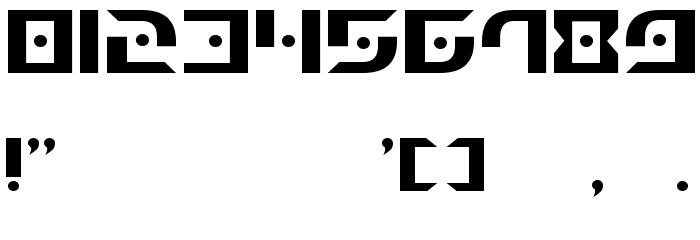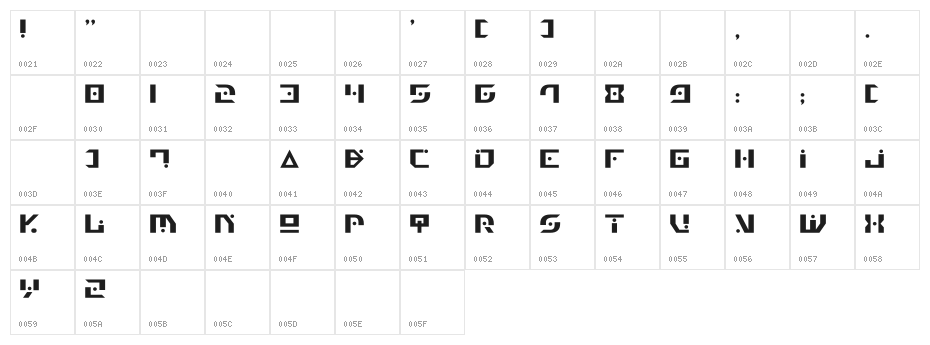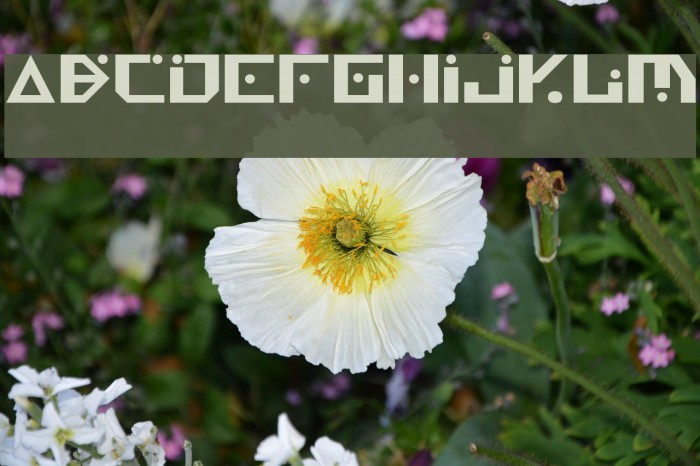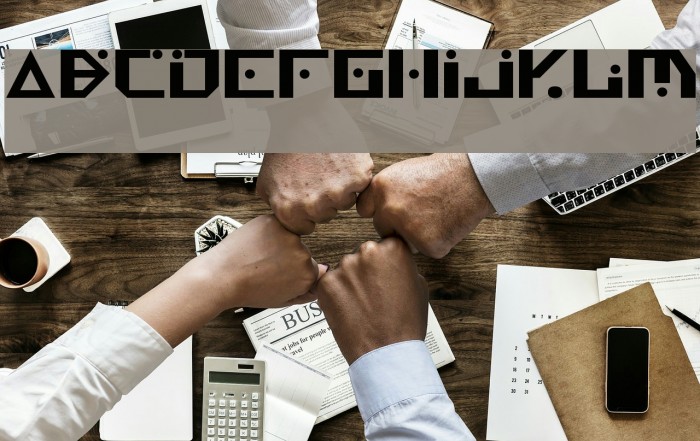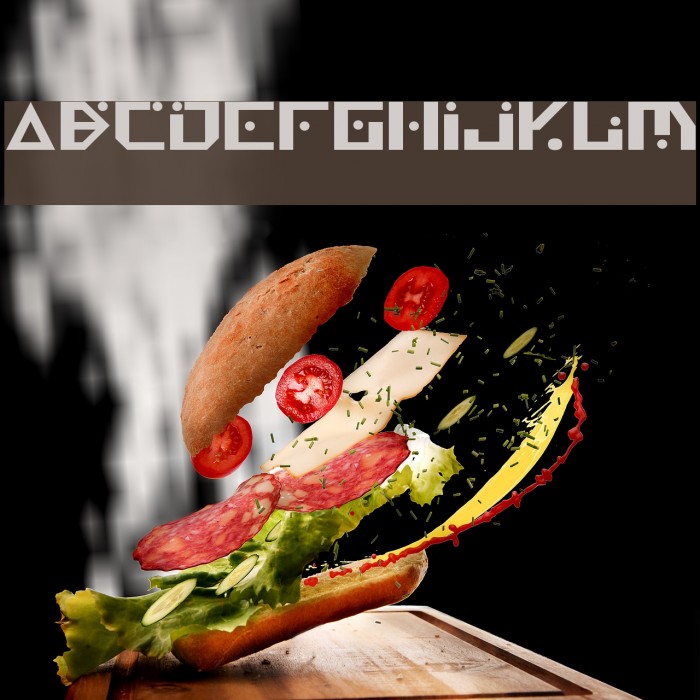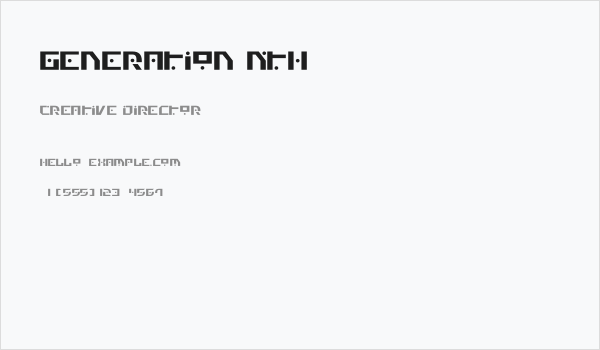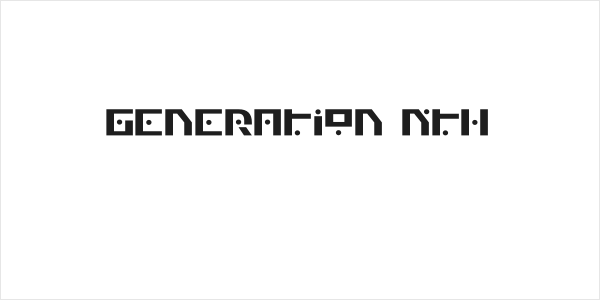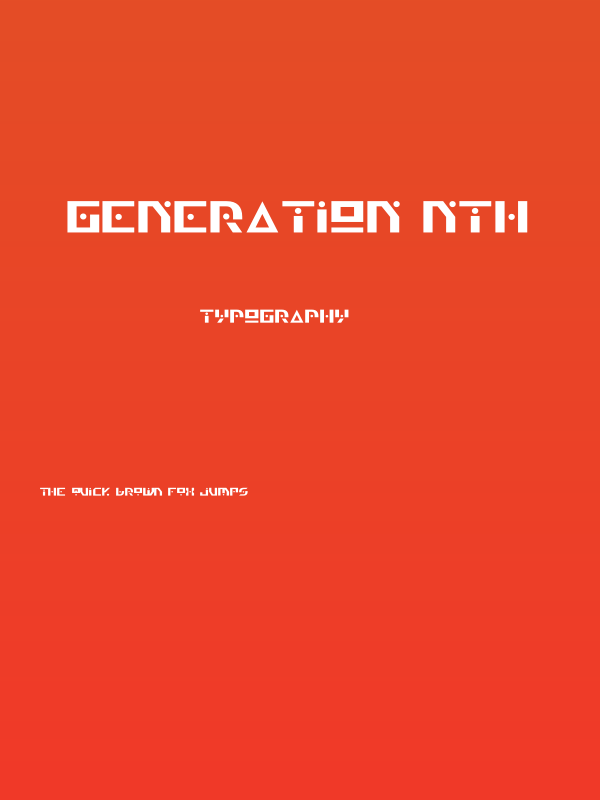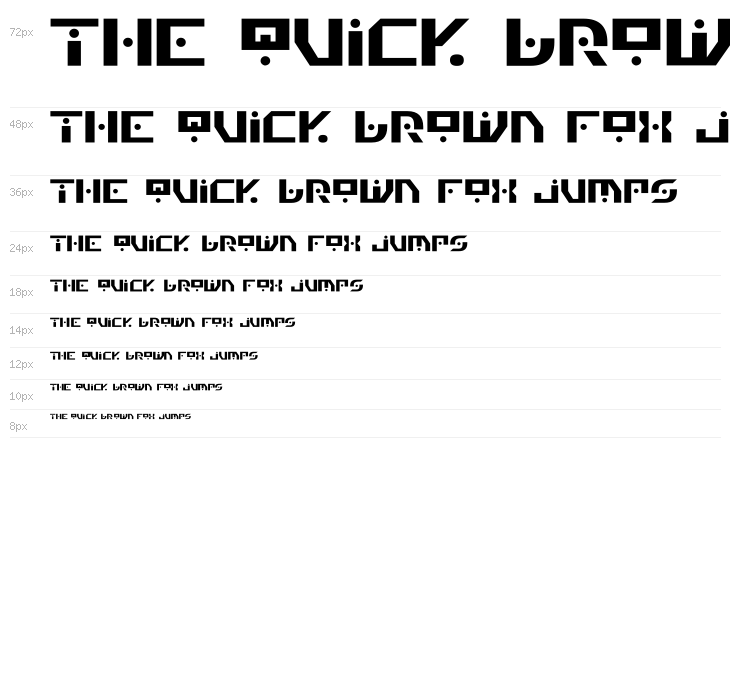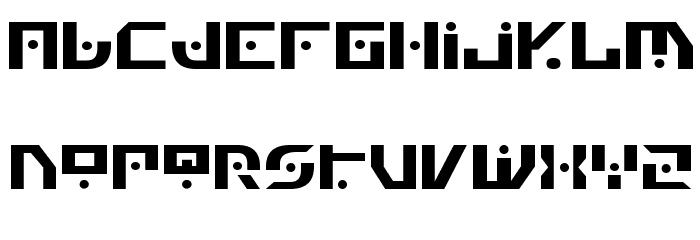
Generation Nth Font
Generation Nth Description
This font features a futuristic and geometric design, characterized by bold, angular shapes and unique dot accents. Each letter is crafted with precision, incorporating sharp edges and a consistent use of circular elements that add a distinct, modern flair. The uppercase and lowercase letters maintain a uniform style, ensuring readability while still offering a decorative touch. Numbers and special characters follow the same design principles, making the font versatile for various applications. The overall appearance is striking and innovative, suitable for projects that aim to capture attention and convey a sense of modernity and technology.
| Proposed Projects | Ideal for sci-fi themed designs, technology branding, video game titles, and modern advertising. |